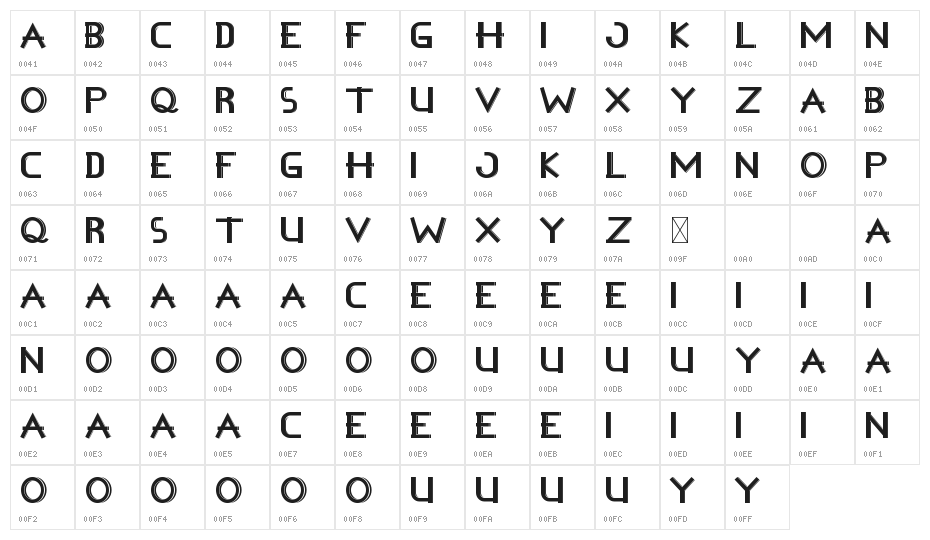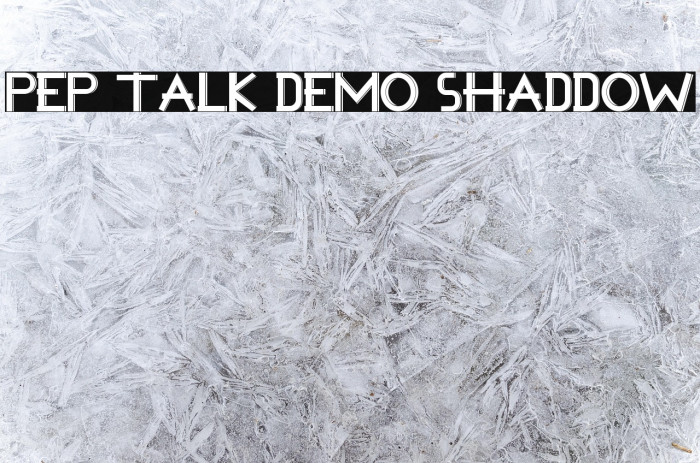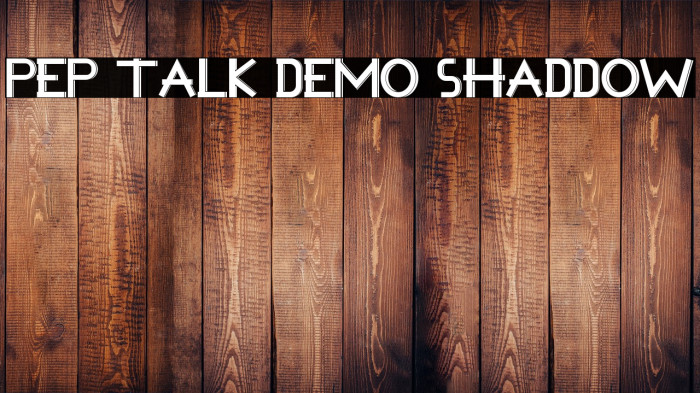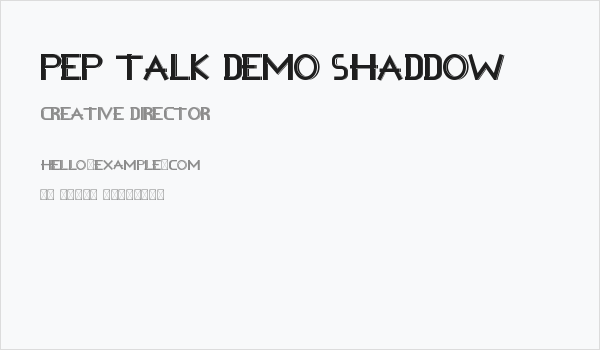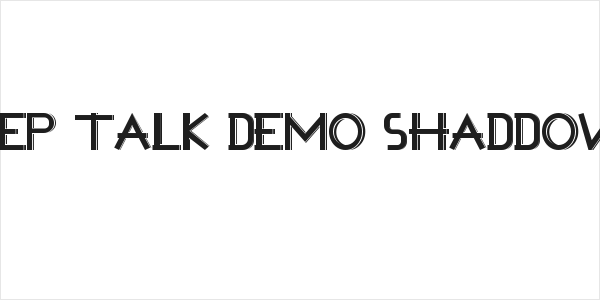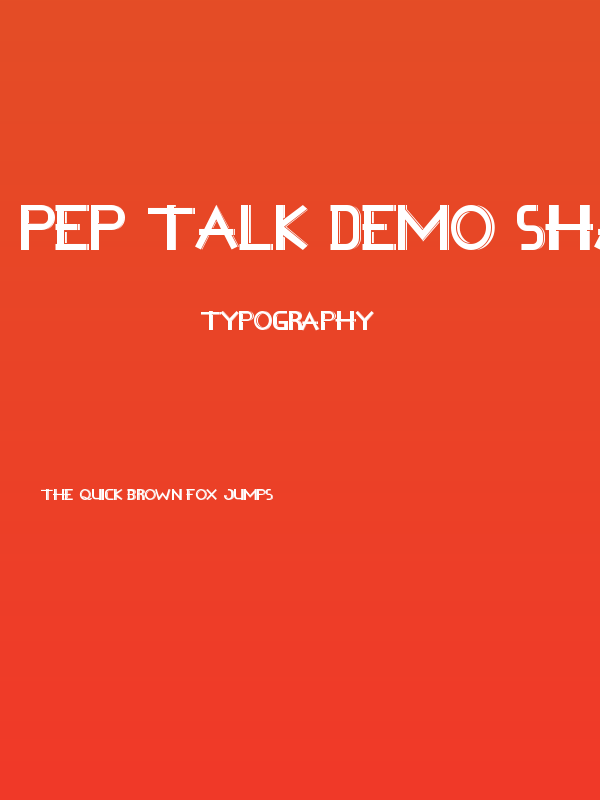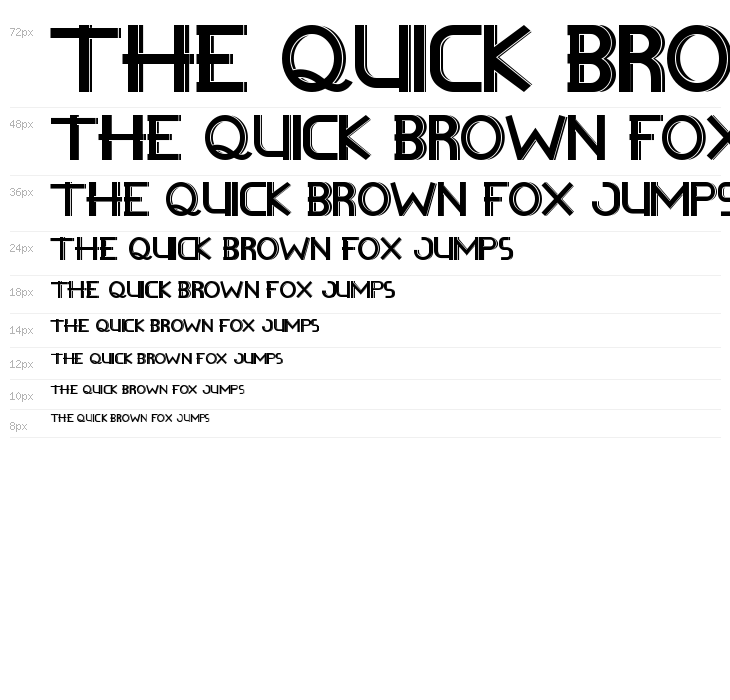
Pep Talk Demo Shaddow Font
Pep Talk Demo Shaddow Description
This font exhibits a bold and modern design with a unique shadow effect that adds depth and dimension to each character. The uppercase letters are crafted with geometric precision, featuring sharp angles and clean lines. The shadow effect is consistently applied, creating a sense of movement and dynamism. The font's style is both futuristic and industrial, making it suitable for projects that require a strong visual impact. The characters are evenly spaced, ensuring readability while maintaining a distinctive aesthetic. This font is ideal for headlines, posters, and branding materials that aim to stand out with a bold statement.